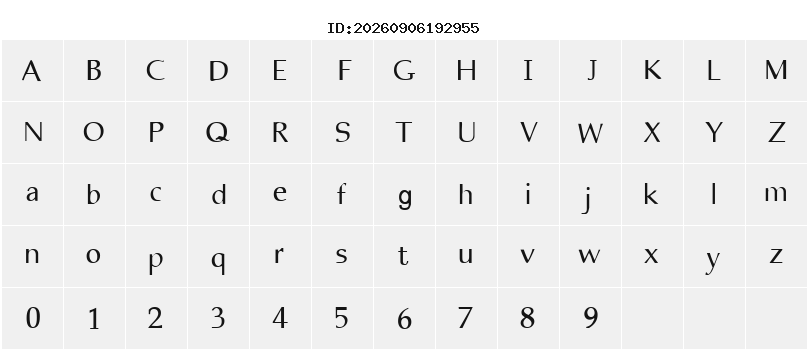
TAMILNET Preview
• Font Name: TAMILNET
• Font ID: Alts:TAMILNET
• Full Font Name: TAMILNET
• Version: 1.0 Sat Feb 18 21:36:35 1995
• PostScript Name: TAMILNET
• Character Count: 194
About TAMILNET.ttf
TAMILNET.ttf is a modern, elegant sans-serif font designed for ultimate readability and visual harmony. Perfect for branding, headlines, web design, and print materials.